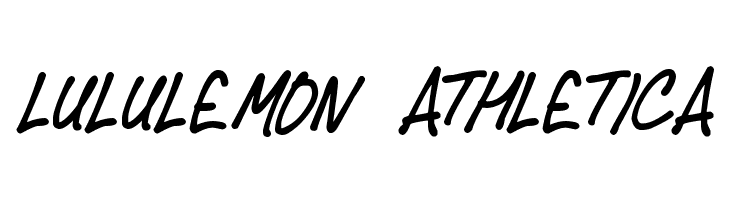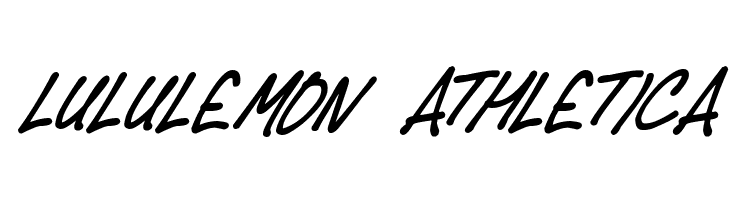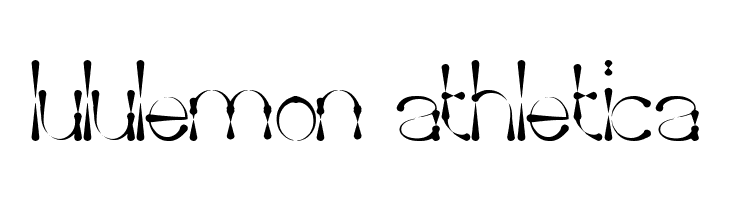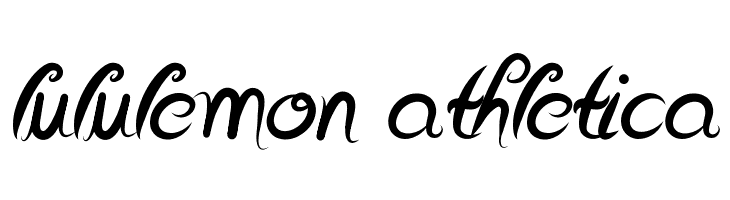
A playful, whimsical font with rounded, flowing letterforms and moderate stroke thickness.
An elegant, curly script font with intricate loops and flowing strokes.
An elegant, curly font with bold weight and decorative style.
A bold, expressive script font with dynamic, interconnected characters.
A playful and whimsical font with bold, rounded strokes and an artistic flair.
A playful, bold font with a whimsical, liquid-like design.
A bold, cursive script font with a lively, handwritten style.
A playful and whimsical font with tall, slender letterforms and artistic flair.